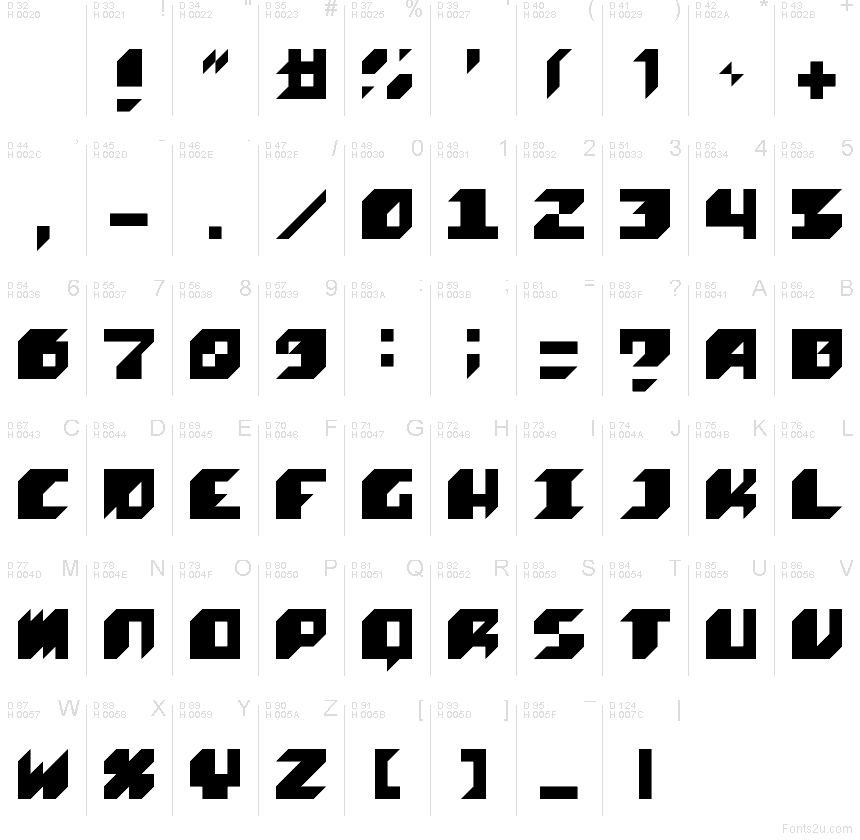
maque Regular
Maque font by Denys Chumak of Choomaque is a free techno display typeface with a jagged, electric edge. Its sharp diagonal cuts, sawtooth corners, and blocky, monospaced feel make every word look like it’s been carved out of steel. Letters lock together with a tight, mechanical rhythm that feels both retro-futuristic and fiercely modern, like arcade logos wired to a synthwave soundtrack.
Using Maque, headlines snap into place with bold, angular energy that instantly grabs attention. This free font works beautifully for game titles, esports branding, music covers, club posters, sci-fi film graphics, and edgy merch. Keep it large and bold so those geometric cuts stay crisp, and pair Maque with a simple, neutral sans serif for body text to let its brutal, techno personality steal the spotlight.